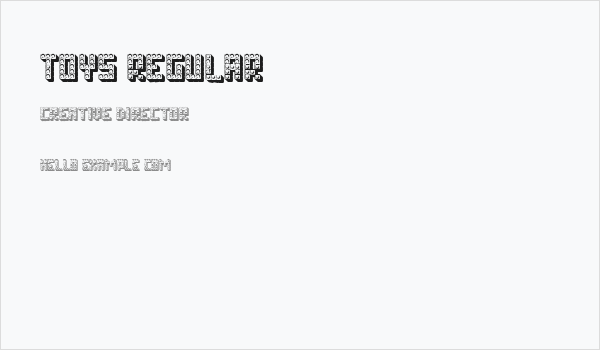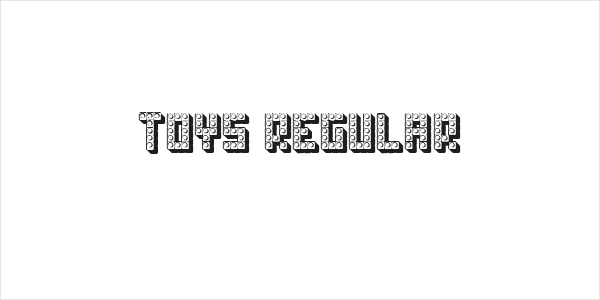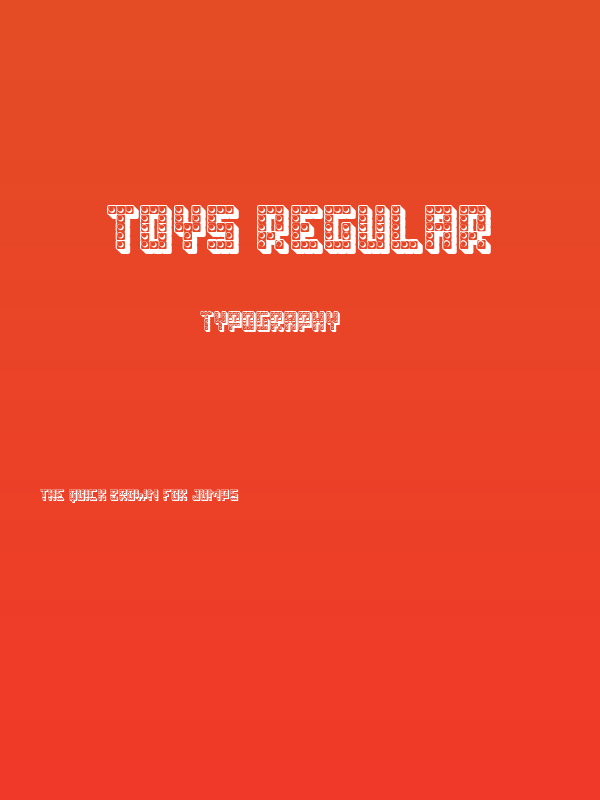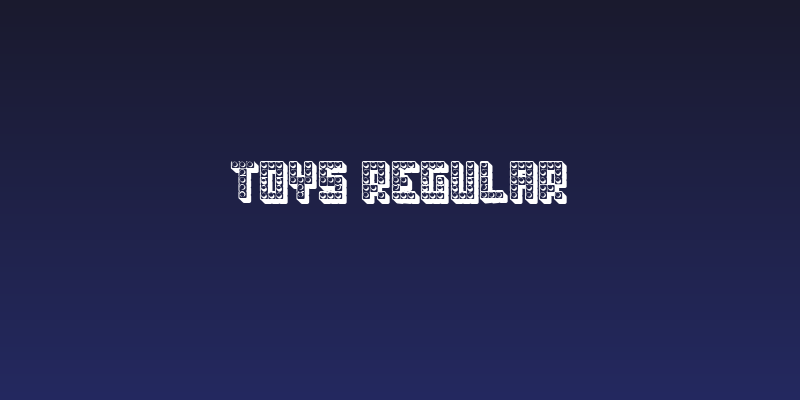
Toys Regular Font
Toys Regular Description
This playful and whimsical font features a unique design that mimics the appearance of toy building blocks. Each character is constructed with a bold, three-dimensional effect, giving it a playful and engaging look. The letters are composed of small circular elements that resemble the studs on toy bricks, creating a textured and tactile feel. This font is perfect for capturing the imagination and adding a sense of fun to any project. Its bold and chunky style ensures high visibility and impact, making it ideal for children's products, toy packaging, or playful branding. The font's distinct style is both eye-catching and memorable, making it a great choice for projects that aim to convey creativity and joy.
| Proposed Projects | Children's book covers, toy packaging, playful branding, educational materials. |